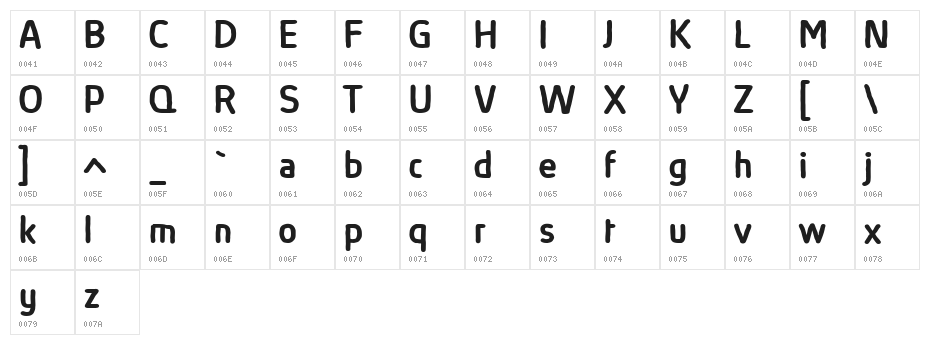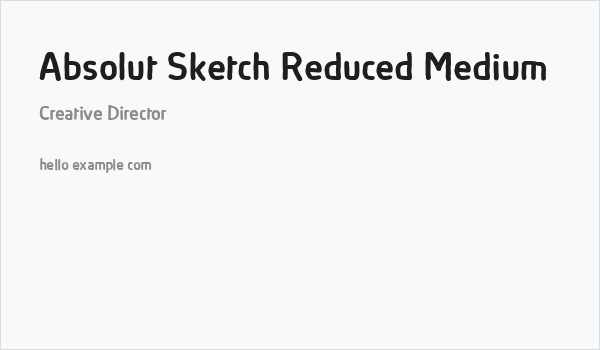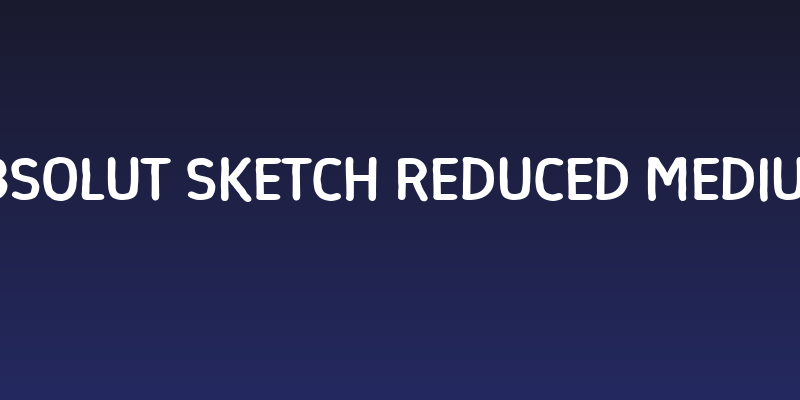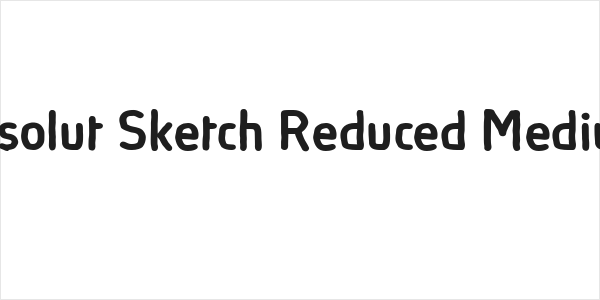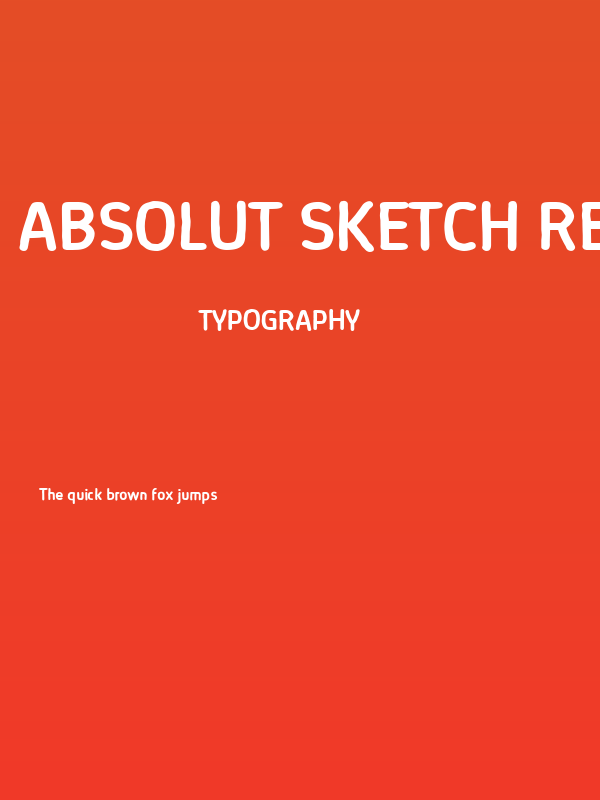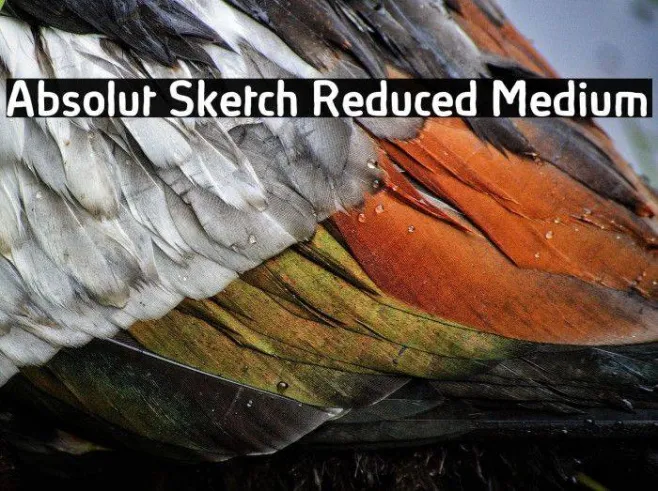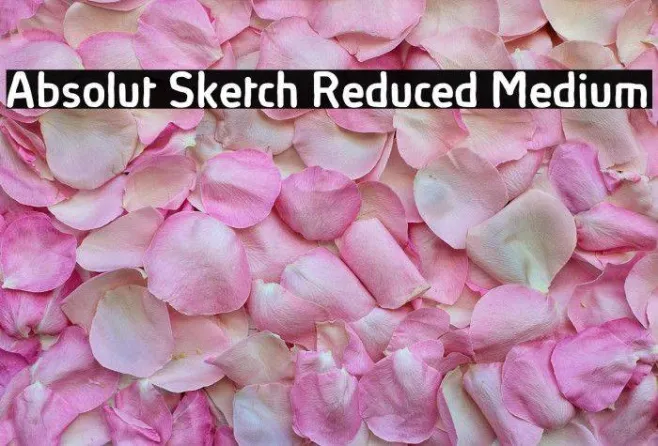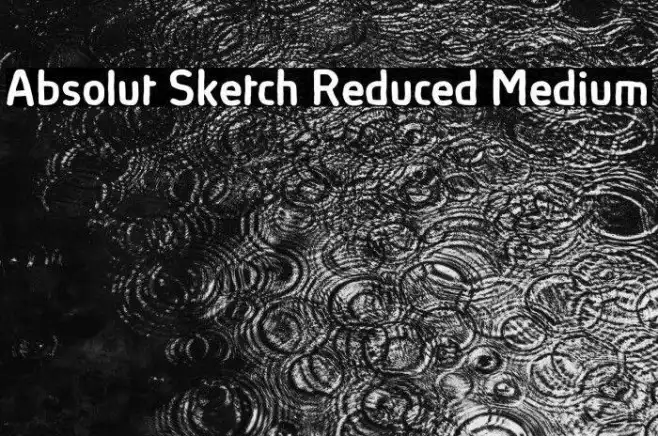
Absolut Sketch Reduced Medium Font
Absolut Sketch Reduced Medium Description
This font features a playful and hand-drawn aesthetic, characterized by its rounded and slightly irregular letterforms. The strokes are consistent in width, giving it a uniform appearance while maintaining a casual and approachable feel. The uppercase and lowercase letters are well-balanced, with a slight tilt that adds to the informal style. The numbers and special characters follow the same design principles, ensuring cohesion across all glyphs. This font's unique charm lies in its sketch-like quality, making it stand out in creative projects.
| Proposed Projects | Ideal for children's books, creative posters, casual branding, and playful invitations. |